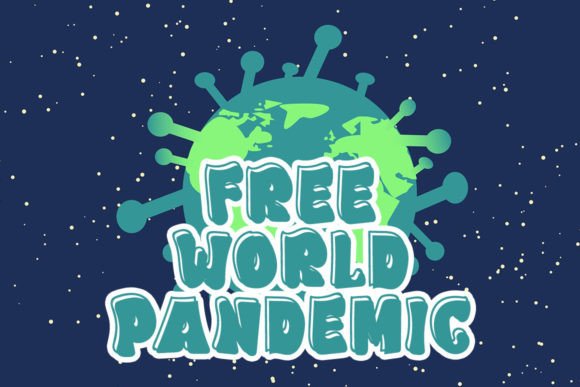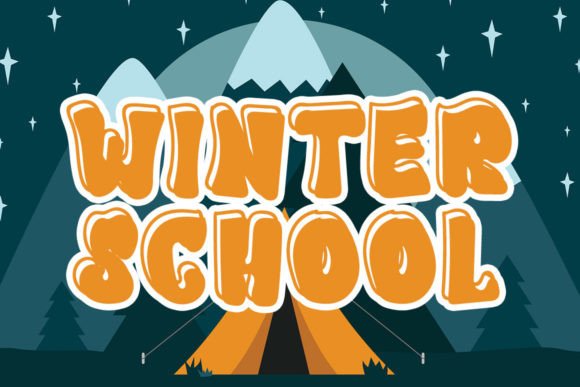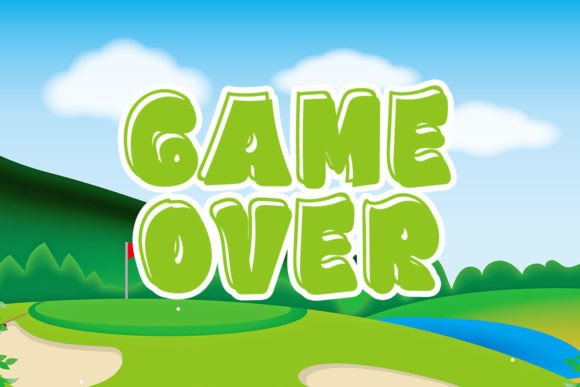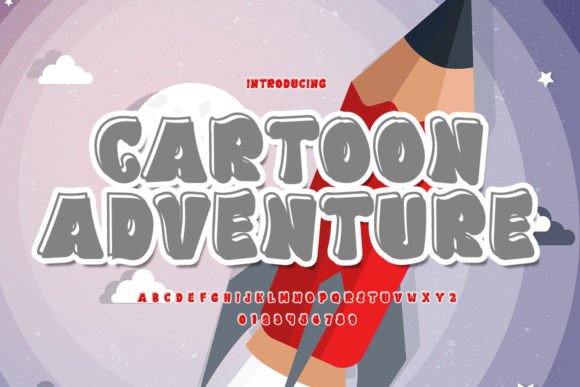
The Quest for the Perfect Font: Discovering Cartoon Adventure
Ah, the eternal quest for the perfect font! I recall a particularly frustrating design project where I spent hours searching for a font that captured the playful yet elegant vibe my client wanted. The brief was simple: create a whimsical, adventurous feel for a children’s brand. Sounds easy, right? But, as any designer knows, finding that ideal font can be like searching for a needle in a haystack. That’s when I stumbled upon Cartoon Adventure – a beautiful, sweet font that has since become a staple in my design toolkit.
First Impressions: A Beautiful and Sweet Font
Cartoon Adventure is, without a doubt, a stunning font. It’s fresh, clean, and elegant, making it an incredibly versatile choice for a wide range of projects, from formal presentations to informal social media graphics. This font has a way of adding an incredibly joyful touch to your designs, making it perfect for projects that require a bit of whimsy.
- ✨ Its versatility – Cartoon Adventure works beautifully in both digital and print projects.
- ✅ The font’s exceptional legibility, even at smaller sizes.
- 🌈 The wide range of OpenType features, including glyphs and stylistic alternates, which offer endless creative possibilities.
While Cartoon Adventure is an outstanding font, there are a few minor considerations to keep in mind:
- 🤔 Some users may find the font’s sweetness and playfulness too pronounced for very formal projects.
The Story Behind Cartoon Adventure
Cartoon Adventure was designed with the intention of creating a font that captures the magic and excitement of childhood adventures. Inspired by classic cartoons and animated films, the font’s creator aimed to craft a typeface that would bring a sense of wonder and playfulness to any project. With its elegant lines and whimsical charm, Cartoon Adventure has become a beloved font among designers and crafters.
Q: Is Cartoon Adventure suitable for body text?
A: While Cartoon Adventure is an excellent font, its sweetness and playfulness may make it better suited for headings or titles. For body text, a more traditional font may be more readable.